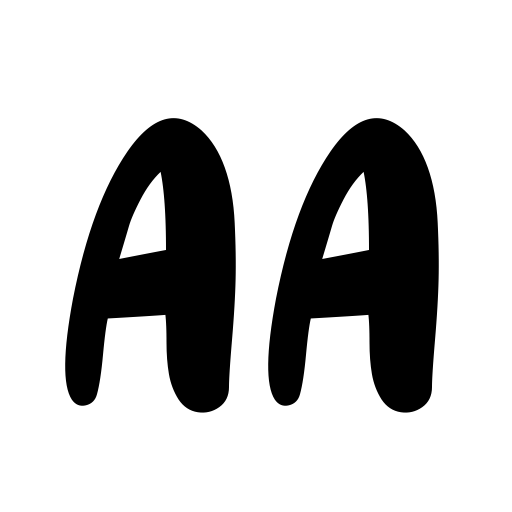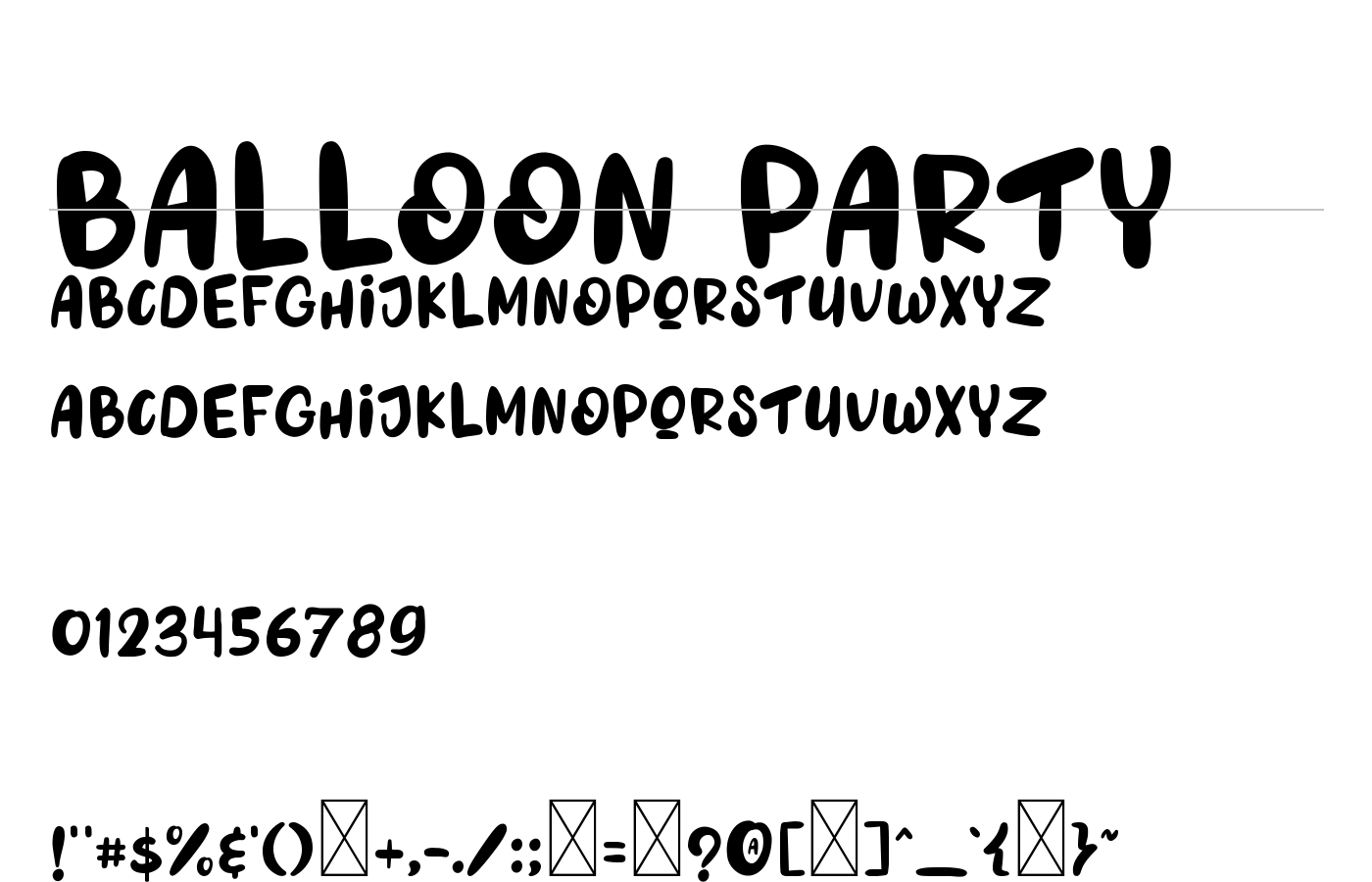
Balloon Party is a playful, bold sans serif font with rounded, bubbly letterforms that evoke a fun, casual atmosphere. Its thick strokes and slightly irregular shapes give it a lively, hand-drawn feel, making it perfect for party invitations, children’s designs, and festive branding. This font shines in headlines and logos where a cheerful, energetic vibe is desired.
Balloon Party Font
About Balloon Party Font
| Font family | Balloon Party Font |
| Designer | Doli Harahap |